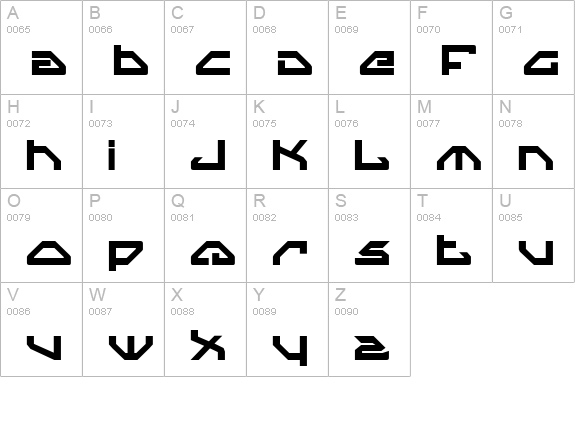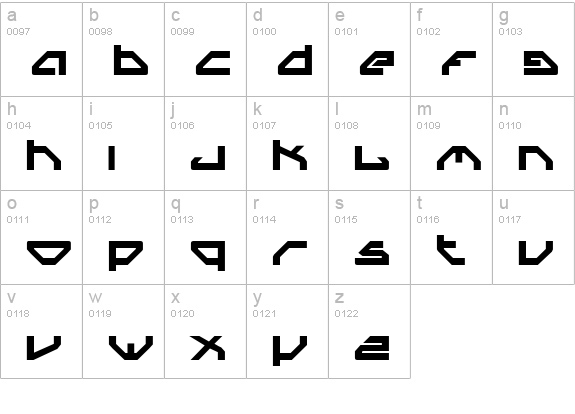
Spylord Bold is a strong, high-contrast variant in the Spylord typeface family \xE2\x80\x94 well suited to headlines, attention-grabbing titles, and strong calls-to-action.
Introducing Spylord Bold, a stunning font that exudes power, elegance, and a touch of mystery. This font is designed for those who dare to make a statement and leave a lasting impression. With its bold and commanding presence, Spylord Bold is perfect for headlines, logos, posters, and any design project that requires an extra dose of sophistication. What sets Spylord Bold apart is not just its striking aesthetic, but also the fact that it is freely available to download at FontsMarket.com. Yes, you read that right - this extraordinary font can be yours without having to spend a dime. FontsMarket.com is renowned for its vast collection of high-quality fonts, and Spylord Bold is no exception. Now, you can effortlessly bring your designs to life with this exceptional font, without breaking the bank. Spylord Bold boasts clean lines and sharp angles, giving it a futuristic and unapologetic appeal. Its bold weight demands attention, instantly capturing the viewer's gaze and leaving a lasting impression. Whether you are designing a sleek corporate brand or a captivating movie poster, Spylord Bold will effortlessly elevate your project to new heights. With its wide range of uppercase and lowercase letters, numbers, punctuation marks, and special characters, Spylord Bold offers endless possibilities to unleash your creativity. This font is meticulously crafted to ensure that every character is visually captivating, ensuring a seamless and visually appealing design experience. The versatility of Spylord Bold knows no bounds. It effortlessly adapts to various design styles, whether it be modern, futuristic, or even retro. Its timeless appeal makes it suitable for a wide array of projects, from fashion magazines to tech startups. Don't miss out on the opportunity to add Spylord Bold to your font collection. Download it for free at FontsMarket.com and experience the power and elegance it brings to your designs. Unleash your creativity and make a bold statement with Spylord Bold.